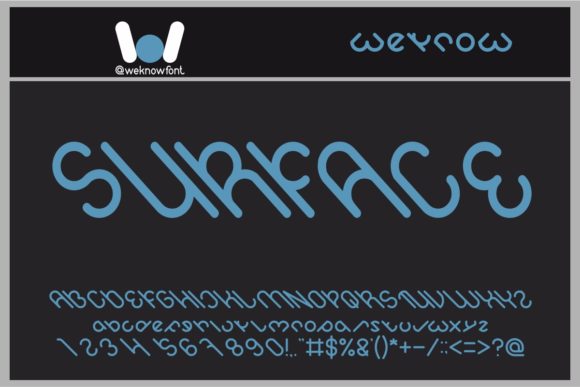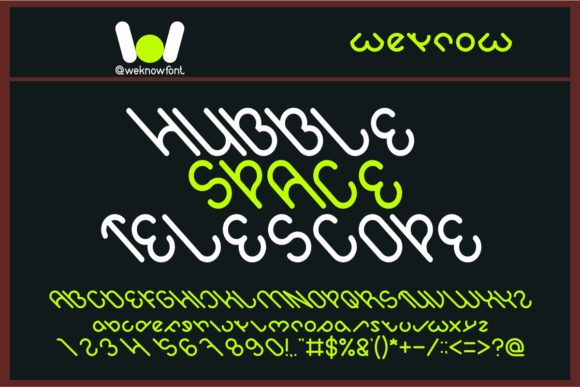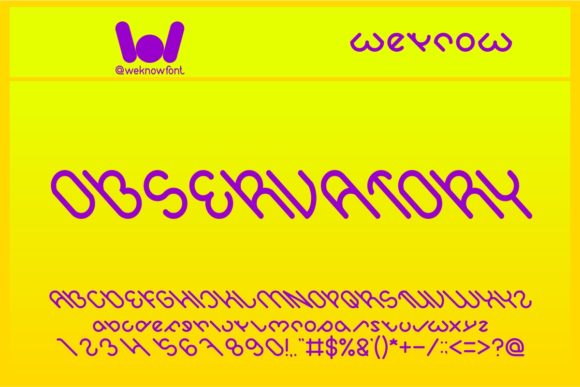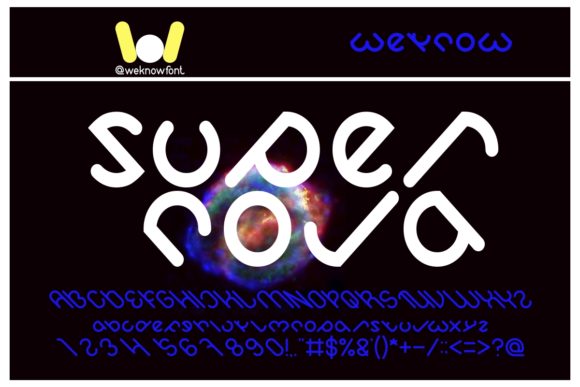
Introduction to Owaikeo Font
Have you ever been working on a creative project, pouring your heart and soul into it, only to realize that the perfect font is just out of reach? You’ve spent hours scrolling through font libraries, searching for that one elusive design resource that will bring your project to life. That’s where the Owaikeo Font comes in – a game-changing, high-quality font that’s perfect for any creative endeavor.
Whether you’re a seasoned designer or just starting out, the Owaikeo Font is an invaluable addition to your toolkit. Its futuristic and simple design makes it a versatile choice for everything from digital designing and presentations to crafting and greeting cards making. And the best part? It’s available for free download, complete with a transparent background, making it easy to integrate into your projects.
Key Features of Owaikeo Font
- High-quality, professional font suitable for creative projects, making it an excellent design resource.
- Includes a range of characters, including uppercase and lowercase letters, numbers, and punctuation marks, making it a versatile design resource.
- Designed to be highly legible, with clear and crisp typography, making it an ideal choice for creative projects requiring a clean and modern aesthetic.
Honest Review: Owaikeo Font
I recently stumbled upon the Owaikeo Font while searching for a free download to use in a creative project. As a designer, I was excited to explore its potential as a design resource.
The Owaikeo Font has a unique, modern aesthetic that I appreciate. Here are some of its strengths:
- ✨ High-quality glyphs that are crisp and clear
- ✨ Versatile and can be used for a range of creative projects
- ⚠️ Limited font sizes and weights, which may not be suitable for complex designs
- ⚠️ Some characters may not render correctly in certain font sizes or styles
Overall, I’m impressed with the Owaikeo Font’s potential as a design resource. While it has some limitations, its high-quality glyphs and transparent background make it a great choice for simple to moderate-sized creative projects. I’d definitely consider using it again in the future.
Tips for Getting the Most Out of Owaikeo Font
To get the most out of the Owaikeo Font, try the following:
- Experiment with different font sizes and styles to create visually appealing designs.
- Combine the Owaikeo Font with other design elements to create a cohesive look.
- Use the font in conjunction with transparent backgrounds to create a seamless design.
The Owaikeo Font is perfect for:
- Creating eye-catching social media graphics.
- Designing professional-looking business cards and brochures.
- Developing engaging presentations and documents.